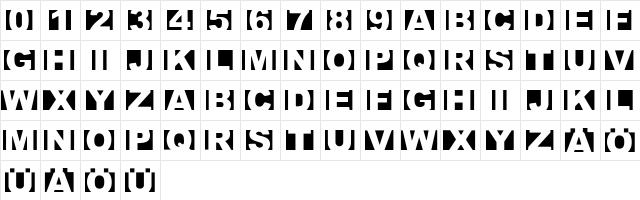
Crimescene Afterimage Crimescene Afterimage
Design Context for Crimescene Afterimage Typeface
Crimescene Afterimage takes a measured approach to typography — its balanced proportions and neutral character make it a reliable workhorse for both digital and print work.